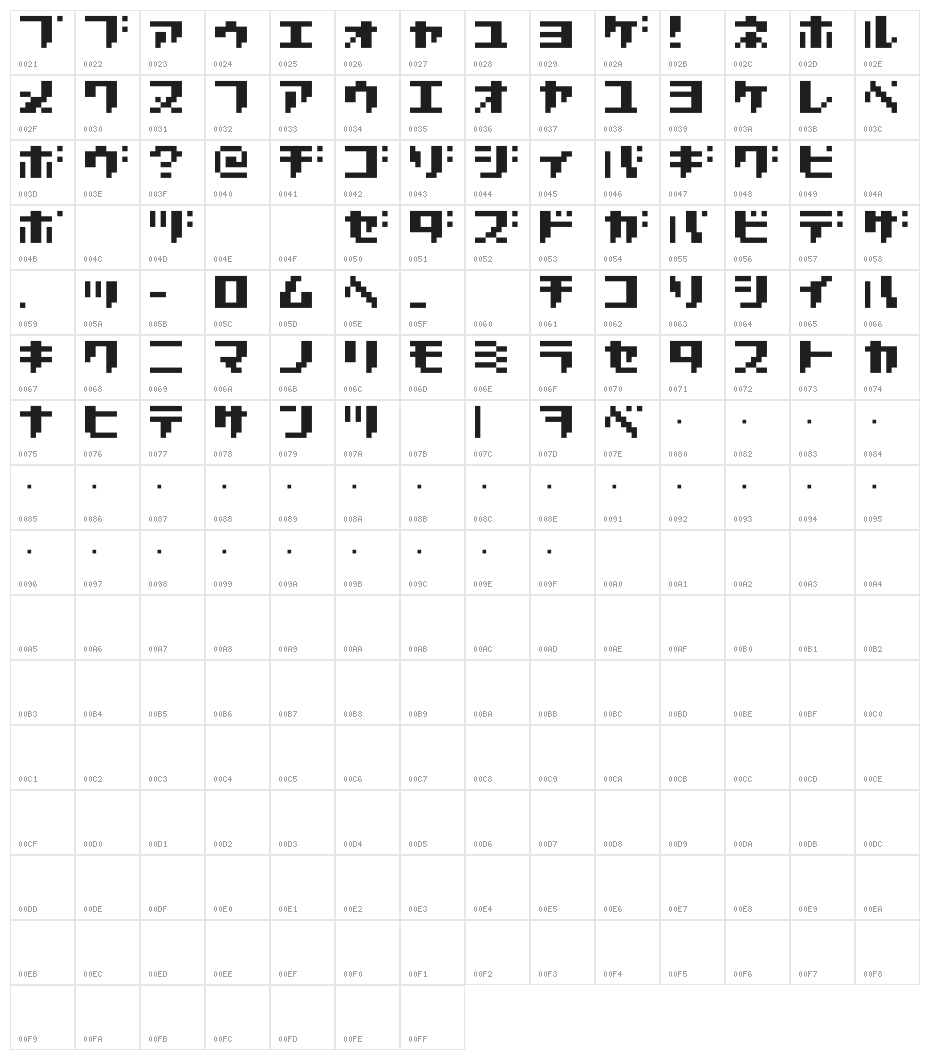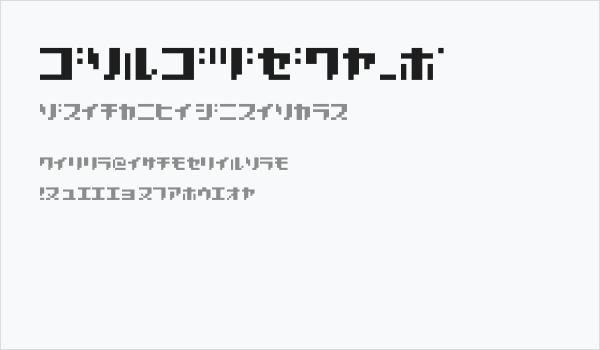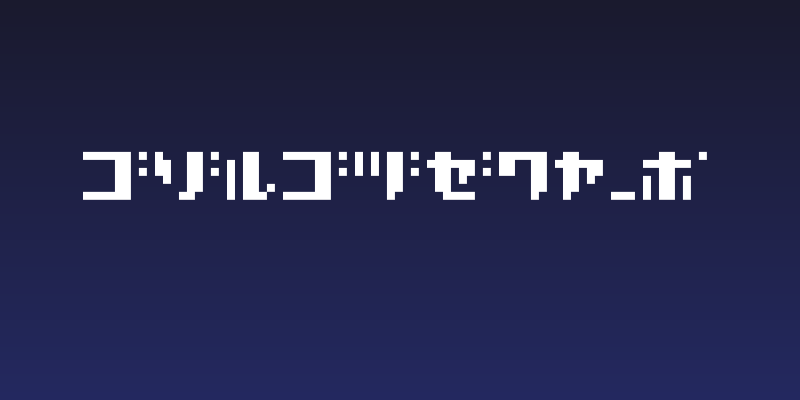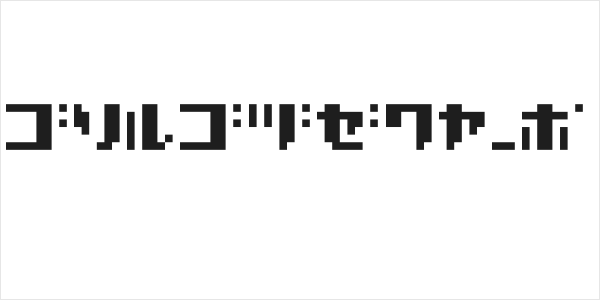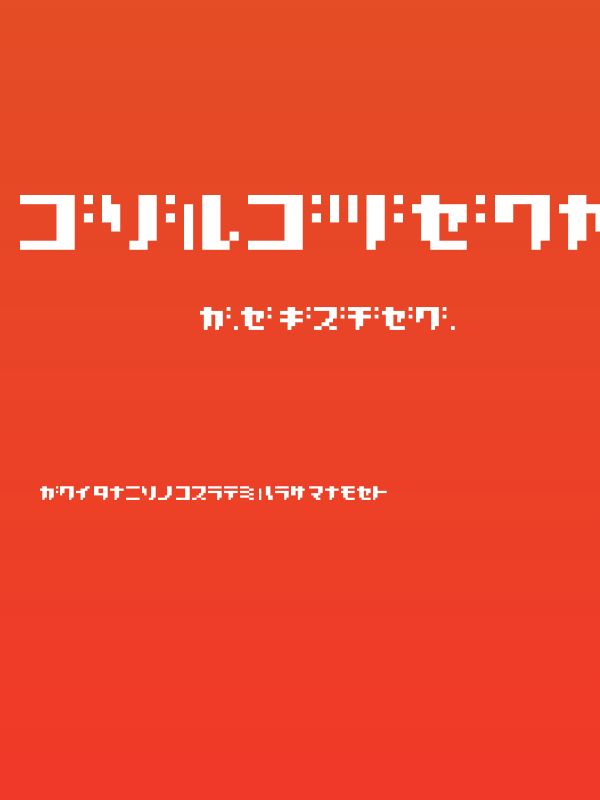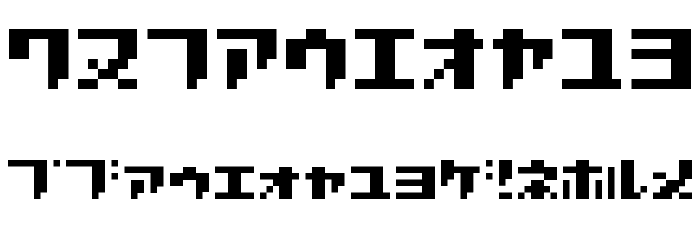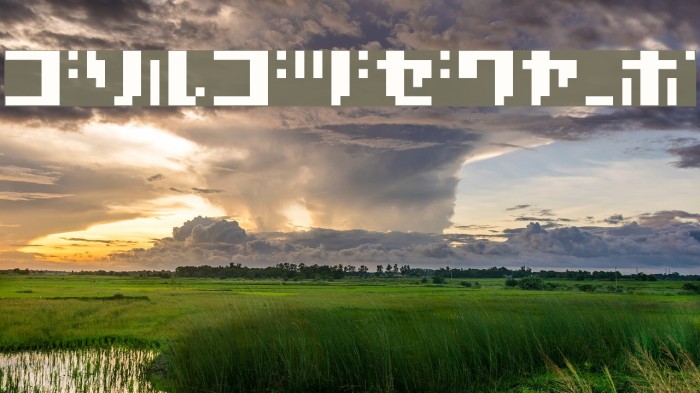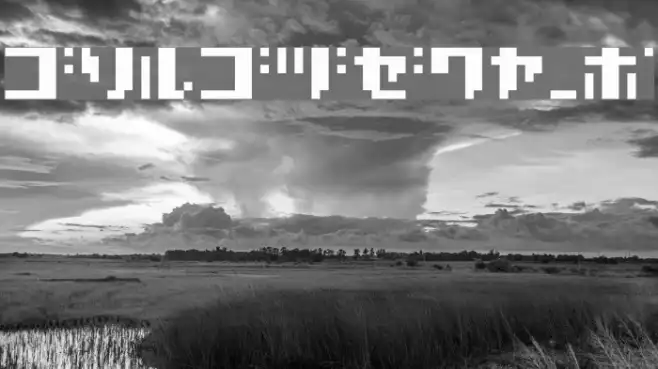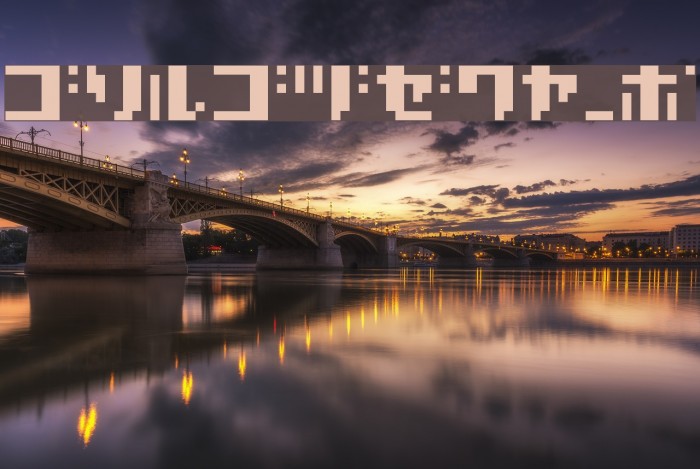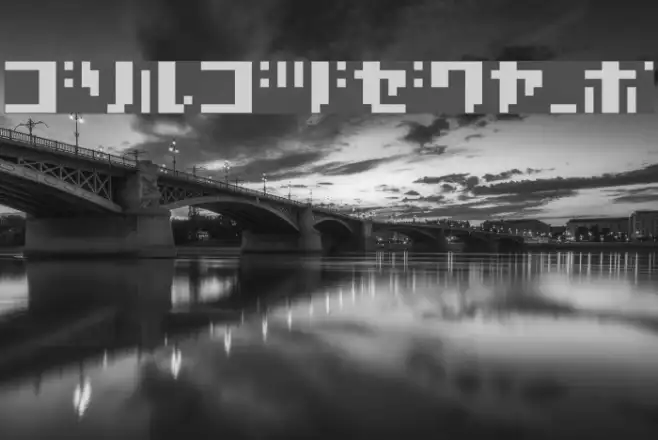
Bc.BMP07_K Font
Bc.BMP07_K Description
This font features a bold, pixelated style reminiscent of early digital or video game typography. Each character is composed of blocky, square shapes, giving it a distinctly retro and geometric appearance. The uniformity in stroke width across all characters contributes to a cohesive and structured look. This font is highly legible at larger sizes, making it suitable for display purposes. Its unique style evokes a sense of nostalgia, ideal for projects aiming to capture a vintage digital aesthetic. The characters are evenly spaced, maintaining a consistent rhythm throughout the text.
| Proposed Projects | Ideal for video game design, retro-themed posters, digital art projects, and any creative work seeking a nostalgic digital look. |